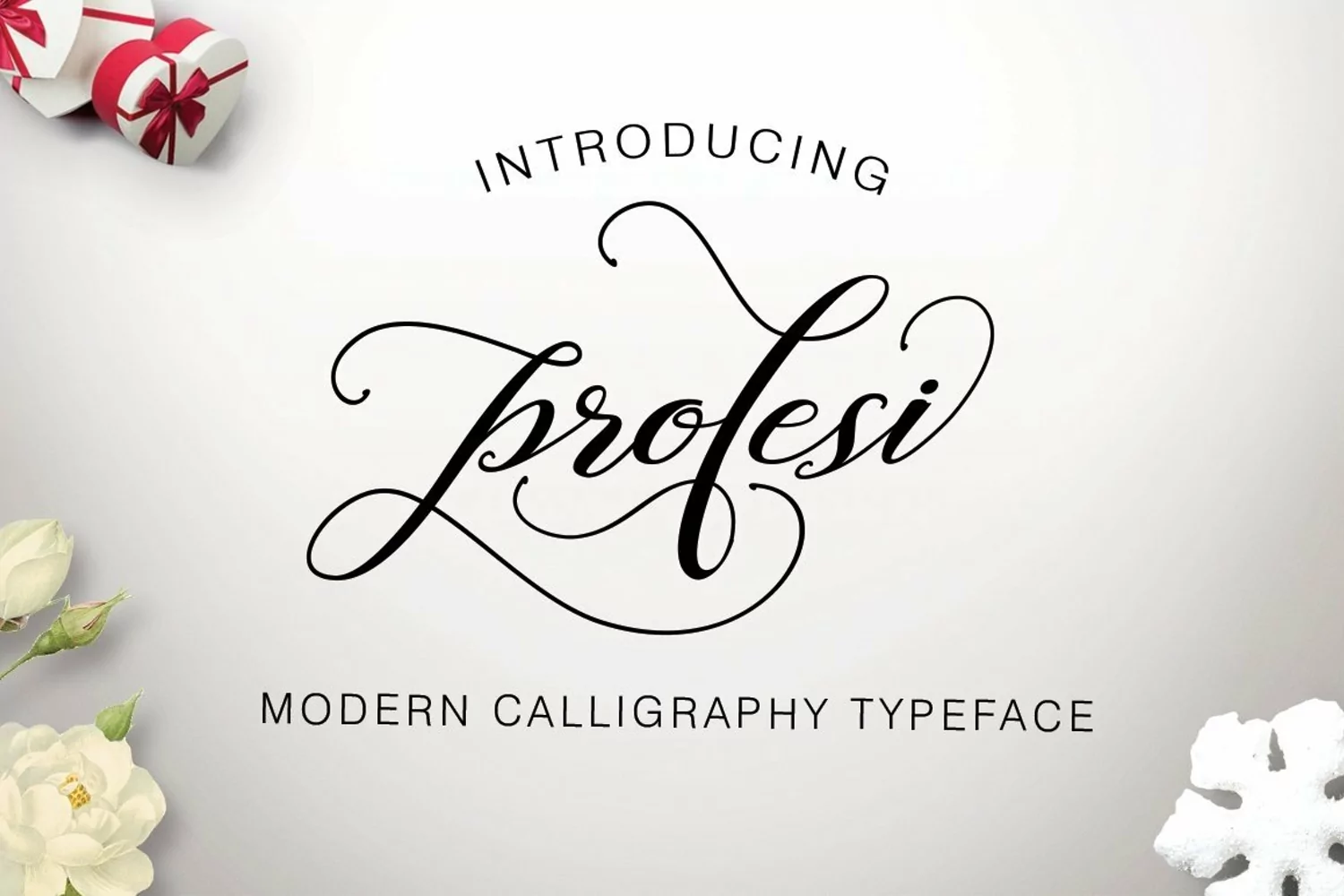
Profesi
Script is a fresh & modern script with a handmade calligraphy style,
decorative characters and a dancing baseline! So beautiful on invitation like
greeting cards, branding materials, business cards, quotes, posters, and more!!
Profesi Script come with 323 glyphs.